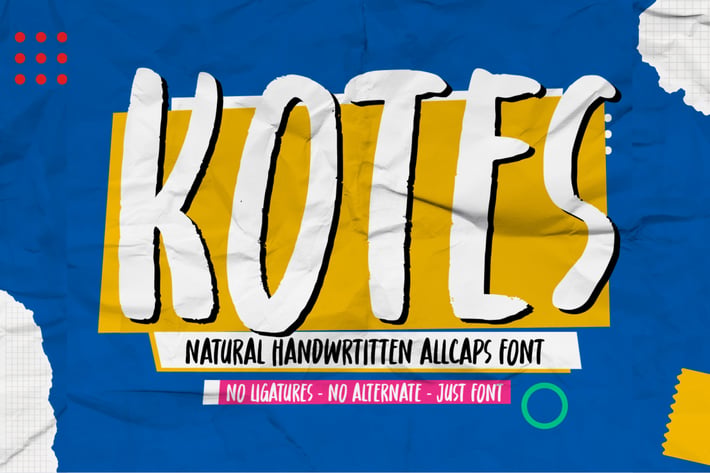
Kotes - Natural Handwritten Allcaps Font
Kotes - Natural Handwritten Allcaps Font with a natural style and dramatic movement. Crafted manually with love and passion, This font is great for your next creative project such as logos, printed quotes, invitations, cards, product packaging, headers, Logotype, Letterhead, Poster, Label, and etc.
+ Multilingual